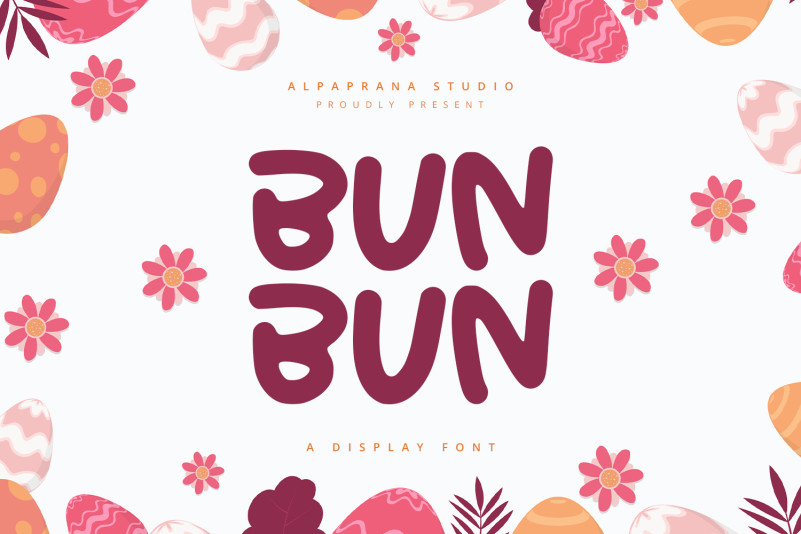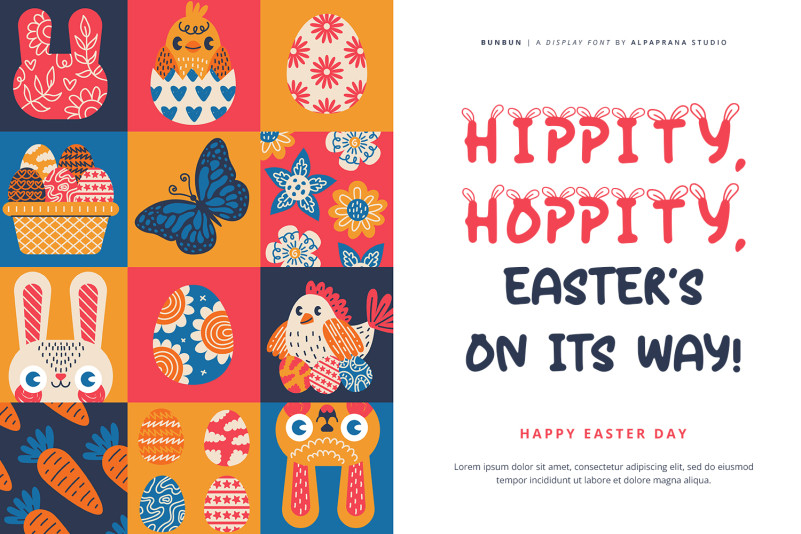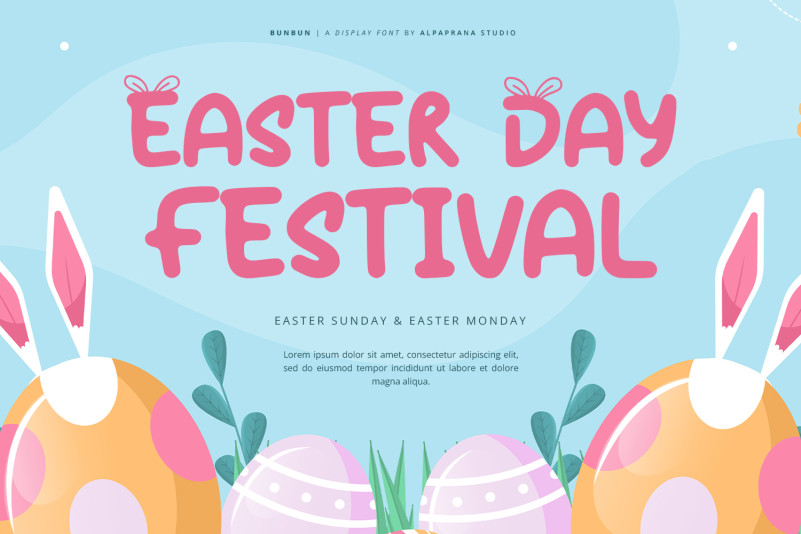
Bunbun Font
Bunbun Display Font is a display font with cute and playful feels. It will be perfectly used for Branding, Logo Design, Lettering, Logotype, Clothing, Poster, magazine, packaging, posters, shopping bags, t-shirts, book covers, photography, special events and other design project.